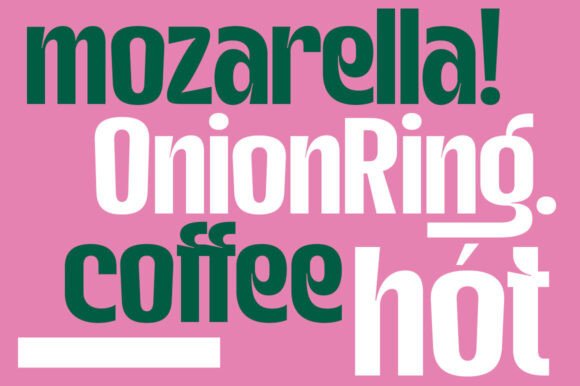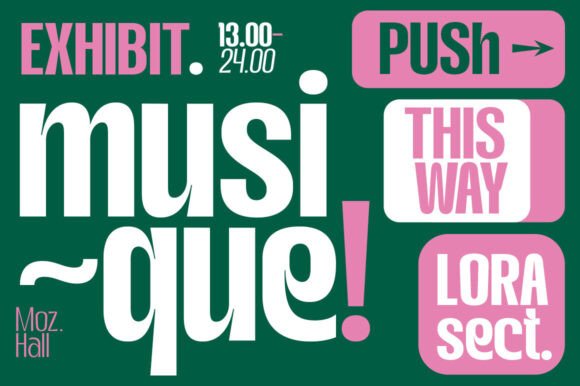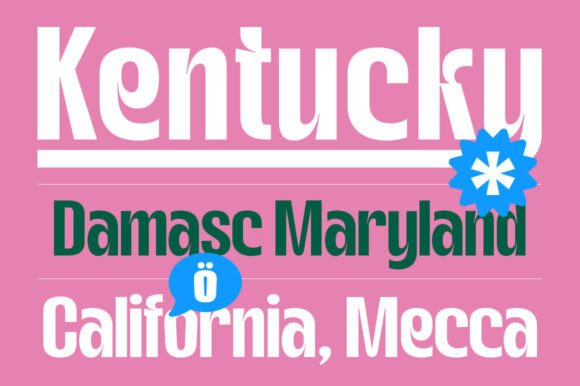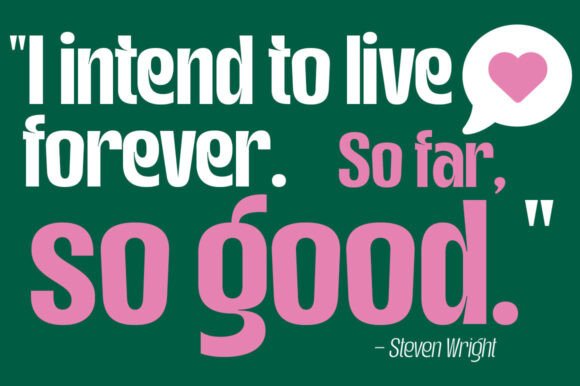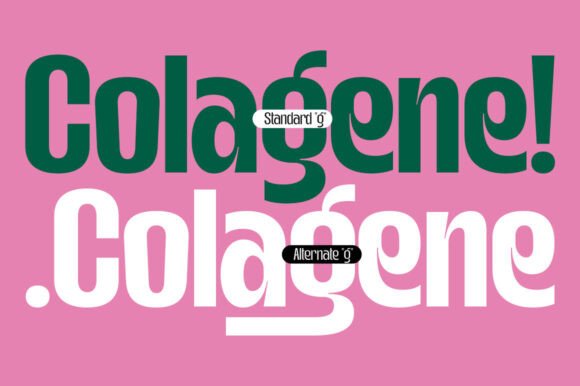
Introducing Gotkin Bold Font: The Epitome of Modern Strength and Sophistication
In the realm of typography, a font can make or break the visual identity of a brand, product, or editorial content. With the vast array of fonts available, finding the perfect blend of modernity, strength, and elegance can be a daunting task. However, for those seeking a sans serif font that embodies dynamism and sophistication, Gotkin is an exceptional choice. Specifically, the Gotkin Bold Font, with its unique characteristics, offers a compelling solution for designers and crafters looking to elevate their projects.
The Essence of Gotkin: A Blend of Strength and Warmth
Gotkin is a thoughtfully designed sans serif font family that aims to convey a sense of modern strength and dynamism. What sets Gotkin apart is its incorporation of soft curves and a bold geometric style. This distinctive combination adds a layer of warmth to the font, making it not only bold but also approachable and engaging. The result is a font that feels both contemporary and inviting, perfect for a wide range of applications.
Versatility at Its Core: A Range of Weights and Features
One of the standout features of the Gotkin font family, including the Gotkin Bold Font, is its extensive range of weights, from light to black. This versatility allows designers to use Gotkin in various contexts, from subtle, detailed work to bold, eye-catching headlines. Additionally, Gotkin includes beautiful italics, excellent weights, alternates, ligatures, and extensive language support. Such a comprehensive feature set makes Gotkin an incredibly versatile tool for professionals in the design and crafting industries.
Clean Lines and Readability: A Font for All Purposes
Gotkin’s design emphasizes clean lines, ensuring that the font remains highly readable across different formats and sizes. Whether it’s used for headlines, titles, or body text, Gotkin maintains its clarity and style. This aspect is particularly beneficial for digital interfaces, editorial designs, and corporate branding, where legibility and aesthetic appeal are paramount.
Variable Font Version: Unleashing Creative Freedom
Understanding the needs of modern designers, Gotkin also comes in a variable font version. This feature allows for easy exploration and refinement of designs, offering an unprecedented level of flexibility. The variable font capability means that designers can seamlessly adjust weight, width, and other attributes without the need for multiple font files, streamlining the design process.
Exceling in Display Settings: Where Gotkin Shines
While Gotkin is versatile enough to be used in a variety of applications, it particularly excels in display settings. Its bold geometric style and soft curves make it an ideal choice for headlines, titles, branding projects, logo designs, packaging, magazine titles, advertisements, and both short and long texts. In these contexts, Gotkin’s unique blend of modernity and elegance truly shines, allowing designers to create visually compelling and impactful works.
Conclusion: Elevate Your Designs with Gotkin Bold Font
In conclusion, the Gotkin Bold Font, with its modern strength, sophistication, and versatile features, presents an excellent option for designers and crafters seeking to enhance their projects. Its unique blend of boldness and warmth, combined with its extensive range of weights and features, makes it suitable for a myriad of applications. Whether you’re working on corporate branding, digital interfaces, editorial designs, or display settings, Gotkin offers a perfect balance of clarity, style, and dynamism. By incorporating Gotkin into your typography arsenal, you’re equipped to create designs that are not only visually stunning but also effectively communicative.